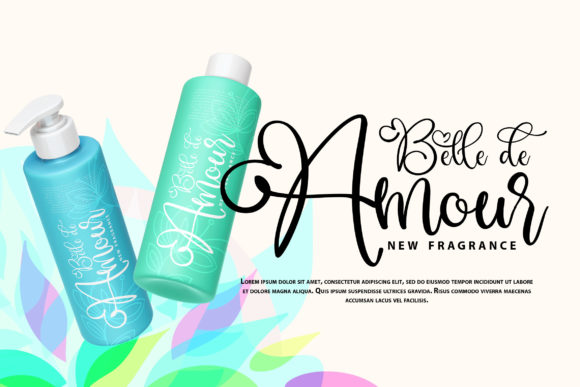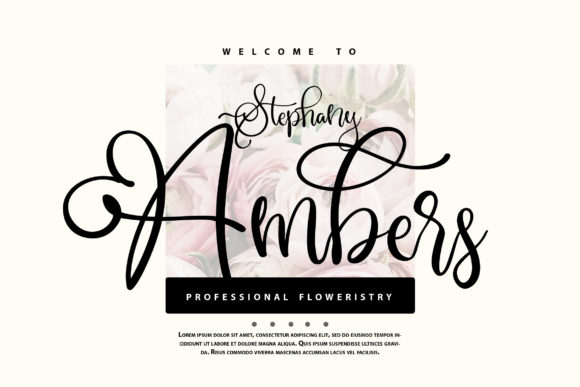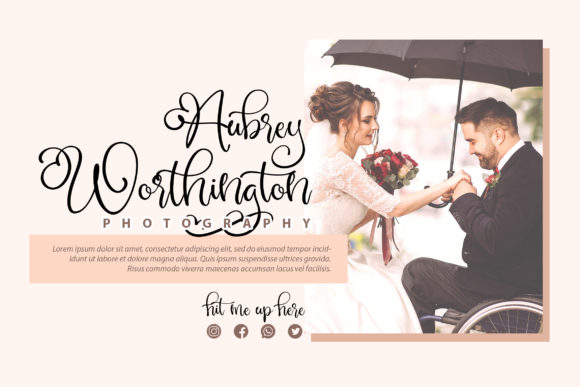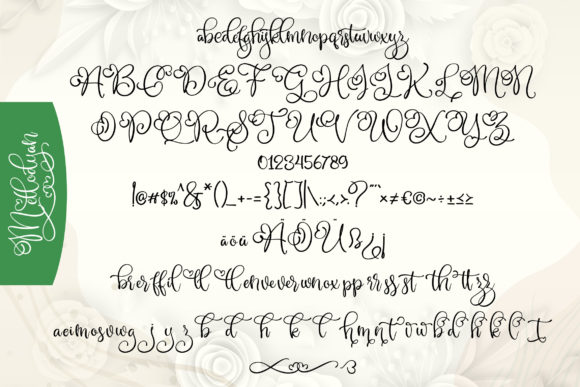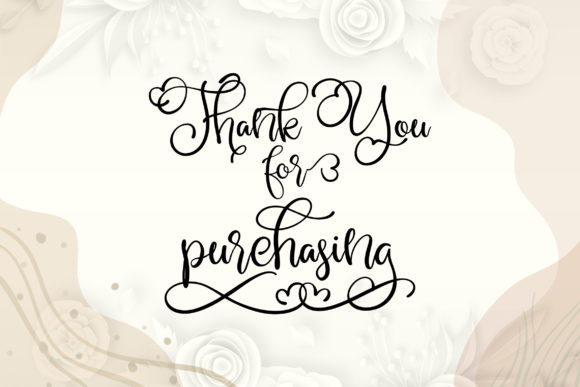
Mellodyan Font
About Mellodyan Font
Imagine a font that effortlessly combines charm and elegance, creating a visual masterpiece suitable for a wide array of design projects. This font isn’t just a typeface; it’s an embodiment of sophistication that enhances the beauty of wedding invitations, thank you cards, quotes, greeting cards, logos, business cards, and any design that craves a touch of handwritten refinement.
The font’s enchanting allure lies in its ability to captivate attention with its charming strokes and evoke a timeless quality through its elegant design. When applied to wedding invitations, it transforms these pieces into works of art, setting the perfect tone for the most special day in a couple’s life. The graceful curves and meticulous details bring a level of sophistication that is both captivating and memorable.
Thank you cards take on a new level of warmth and personalization with this font. Its handwritten touch adds a unique feel, turning simple expressions of gratitude into heartfelt and memorable messages. The font elevates the art of conveying appreciation, ensuring that each card becomes a cherished keepsake.
Quotes come alive with a poetic flair, as the font gracefully weaves words into a visual tapestry. Its charm extends beyond individual letters, creating a harmonious dance that enchants readers. Whether featured on posters or social media graphics, the font turns mundane words into impactful statements, leaving a lasting impression.
Greeting cards are transformed into sentimental treasures as the font infuses them with elegance. Birthdays, anniversaries, or celebratory occasions become more memorable when paired with a font that mirrors the warmth of a handwritten note. The intricate details and graceful flow ensure that each card is a unique work of art.
Logos and business cards benefit from the font’s ability to convey professionalism with a personal touch. It seamlessly merges sophistication with approachability, making a brand or business instantly recognizable. The handwritten aesthetic adds a human element, forging connections with clients and customers.
The font’s PUA encoding is the crowning feature, granting designers seamless access to an array of glyphs and swashes. This functionality allows for effortless customization and enhancement, ensuring a unique and tailored result for every project.
In essence, this font transcends its role as a typeface; it’s a design companion that transforms ordinary projects into extraordinary works of art. With its charm, elegance, and versatility, it has become an essential tool for designers seeking to infuse their creations with a handwritten touch that elevates the ordinary into the extraordinary.